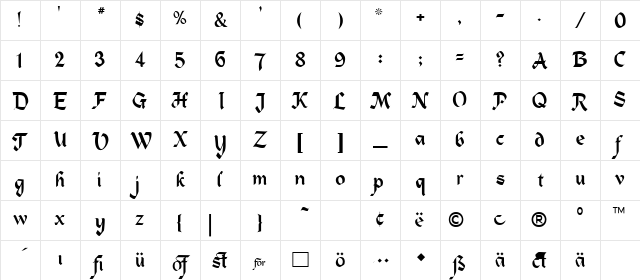
Alpine Medium Free Font
Alpine Medium
Complete Alpine Medium glyph index. Displaying only characters natively supported by Alpine Medium font.
Design Context for Alpine
Alpine is a composed and adaptable typeface that performs quietly and consistently across a wide range of design contexts.